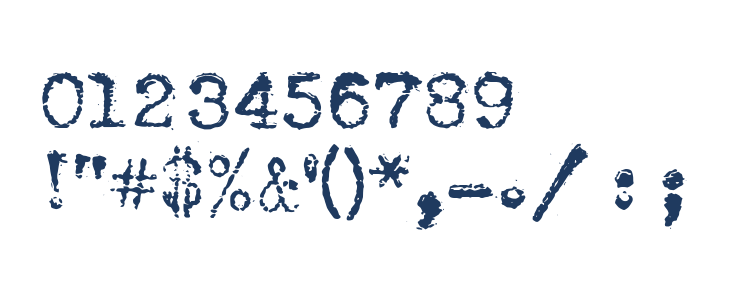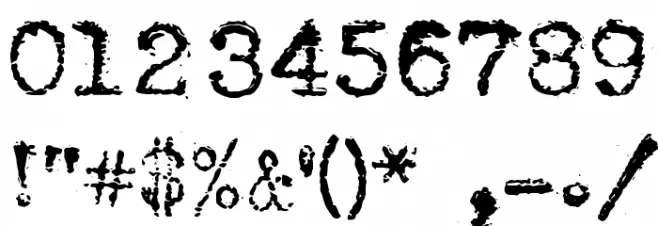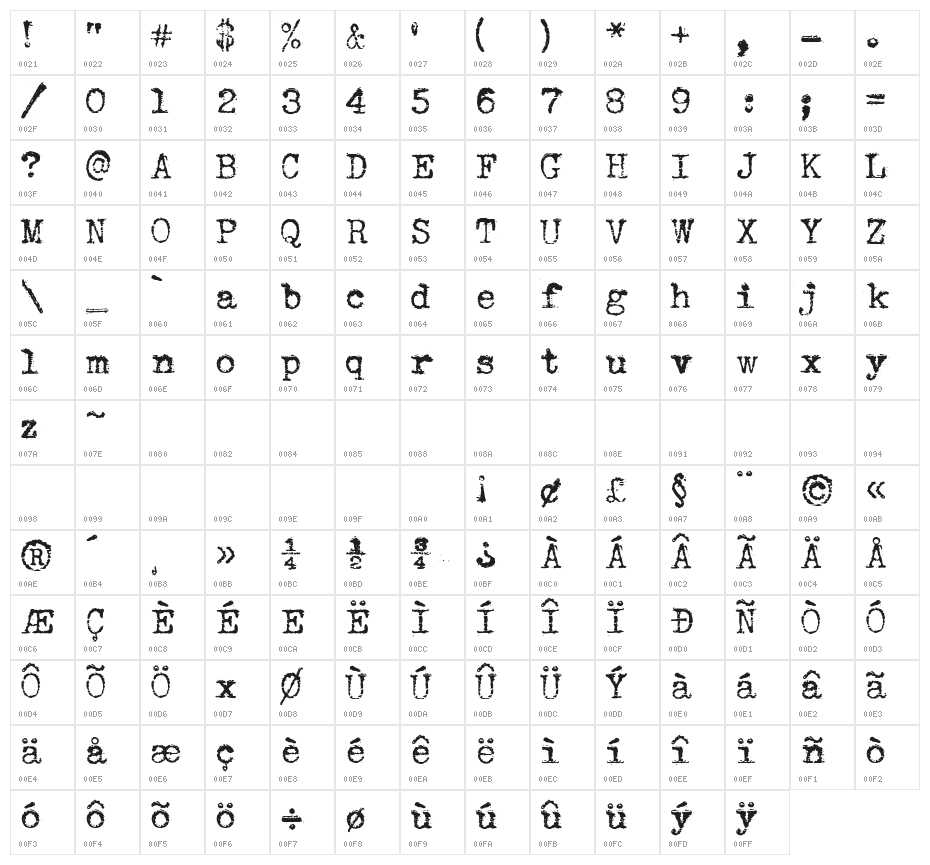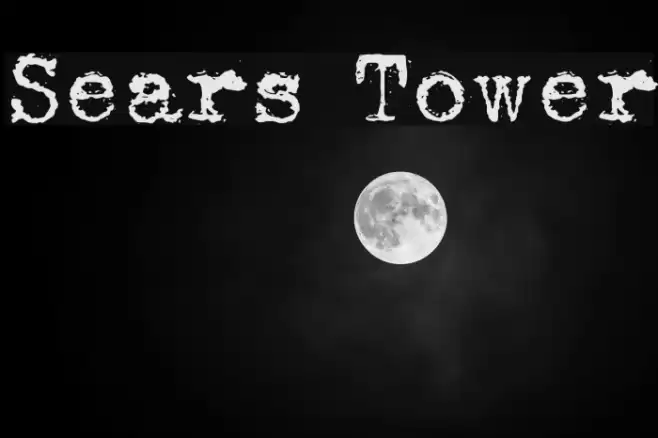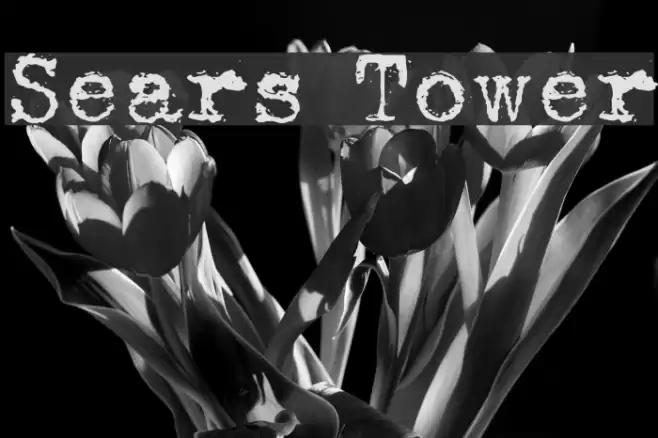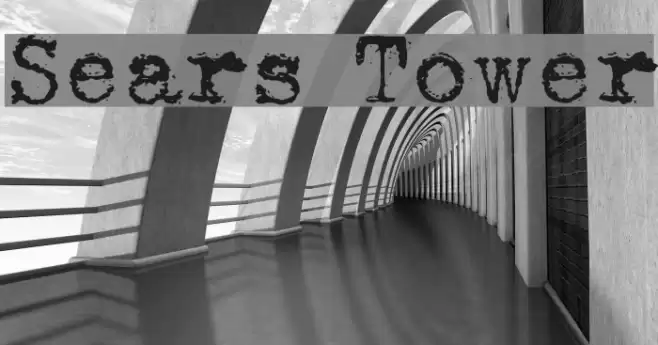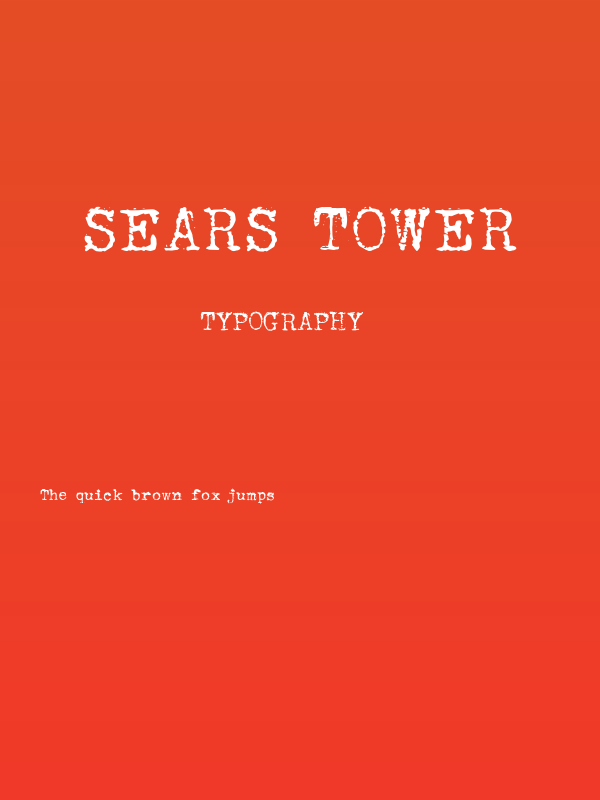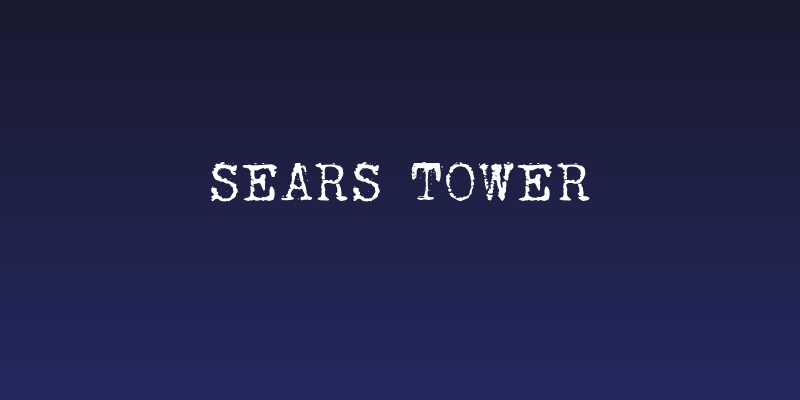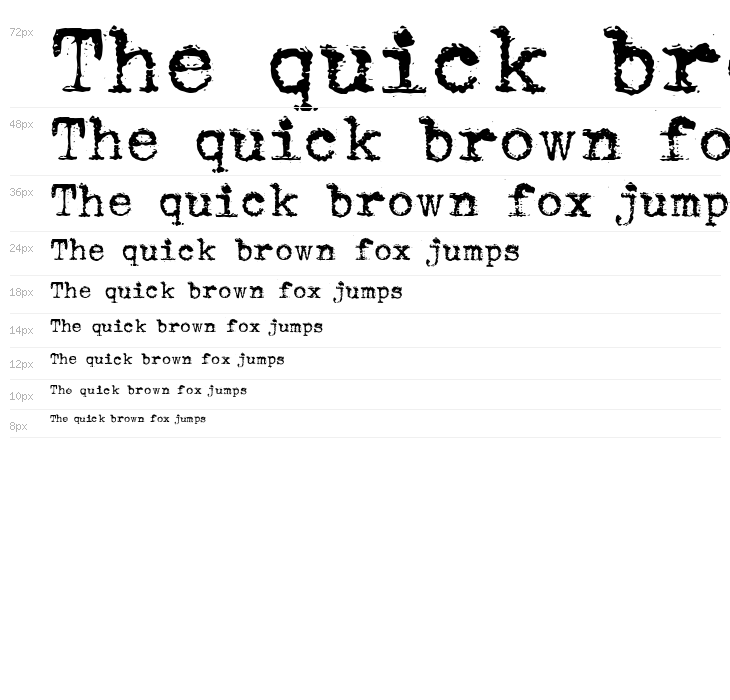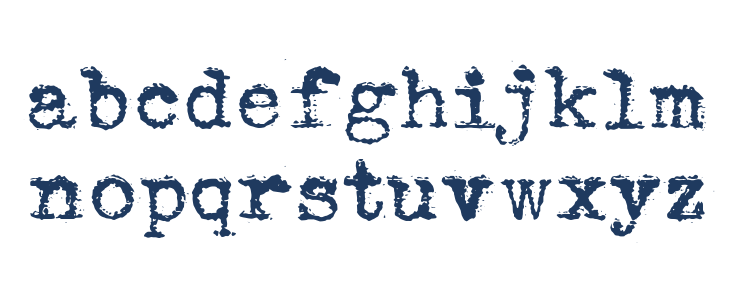
Sears Tower Font
Sears Tower Description
This font exhibits a distressed, grunge style with a textured appearance that mimics the look of aged, worn-out typewriter keys. The characters are bold and have a rough, uneven edge, giving them a vintage, industrial feel. The uppercase and lowercase letters maintain a consistent style, with the numerals and special characters following suit. The font's unique texture and bold presence make it stand out, ideal for projects that require a rugged, authentic look. Its design is reminiscent of old printing techniques, adding a touch of nostalgia and character to any text.
| Proposed Projects | Ideal for posters, album covers, branding for vintage-themed products, or any design requiring a rugged, authentic look. |